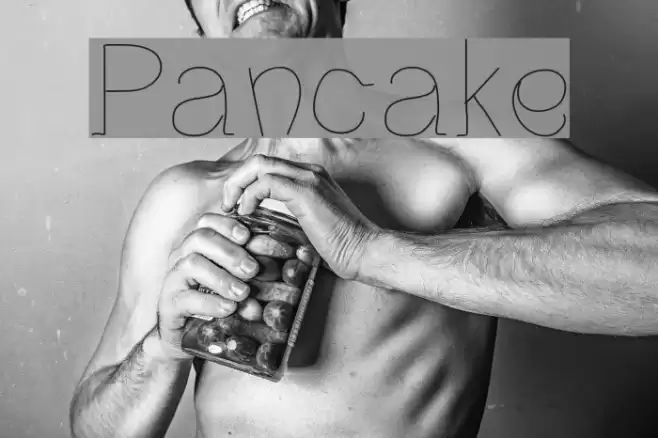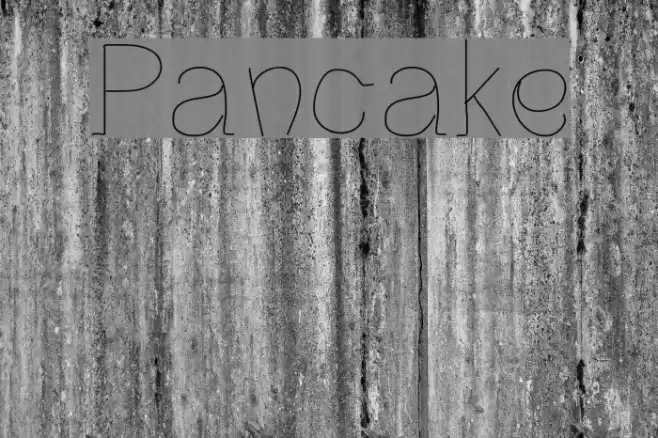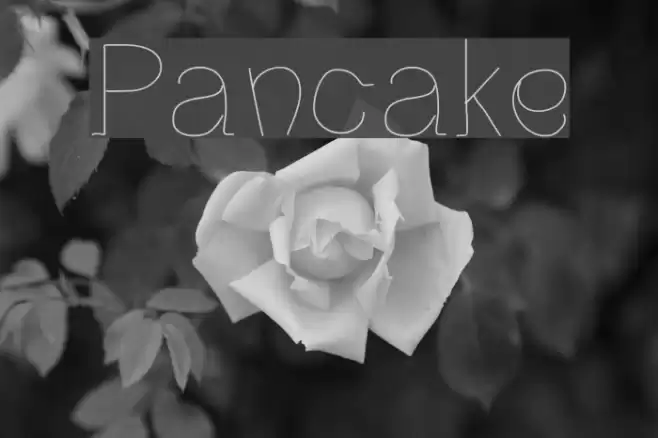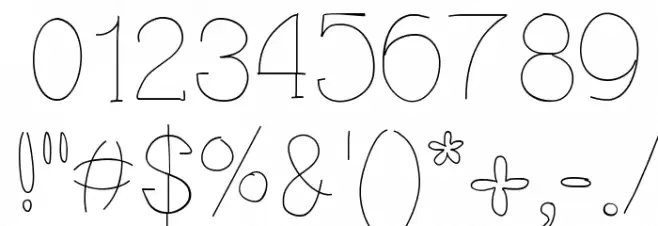
Pancake Font
Pancake Description
This font features a playful and whimsical design, characterized by its thin, delicate lines and unique, slightly irregular shapes. The uppercase letters exhibit a quirky charm with subtle curves and unexpected angles, while the lowercase letters maintain a consistent flow with rounded forms. The numerals are distinct and easy to read, each maintaining the font's light-hearted style. Special characters are creatively integrated, adding to the font's overall playful aesthetic. This font's thin strokes and airy design make it ideal for projects that require a touch of elegance and fun.
A playful, whimsical font with thin lines and unique, irregular shapes from Uncategorized fonts.
- Proposed Projects: Ideal for children's books, playful branding, greeting cards, and creative invitations.
- Weight: Light
- Overall Style: Playful, Whimsical
- Use Case: Headlines, Logos, Creative projects